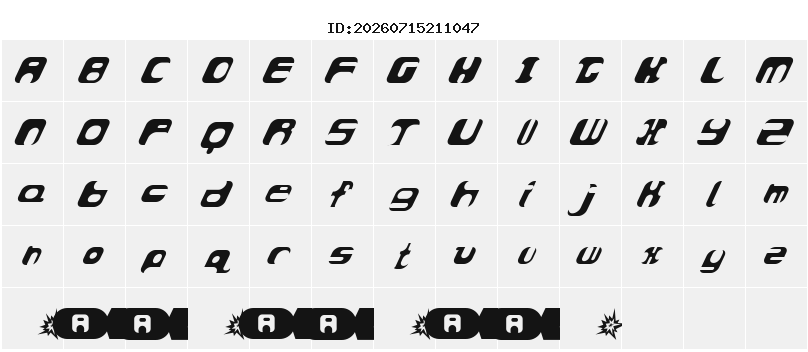
• Font Name: AtomBomb
• Font Style: Speedster
• Full Font Name: AtomBomb Speedster
About AtomBomb.ttf
AtomBomb.ttf is a modern, elegant sans-serif font designed for ultimate readability and visual harmony. Perfect for branding, headlines, web design, and print materials.